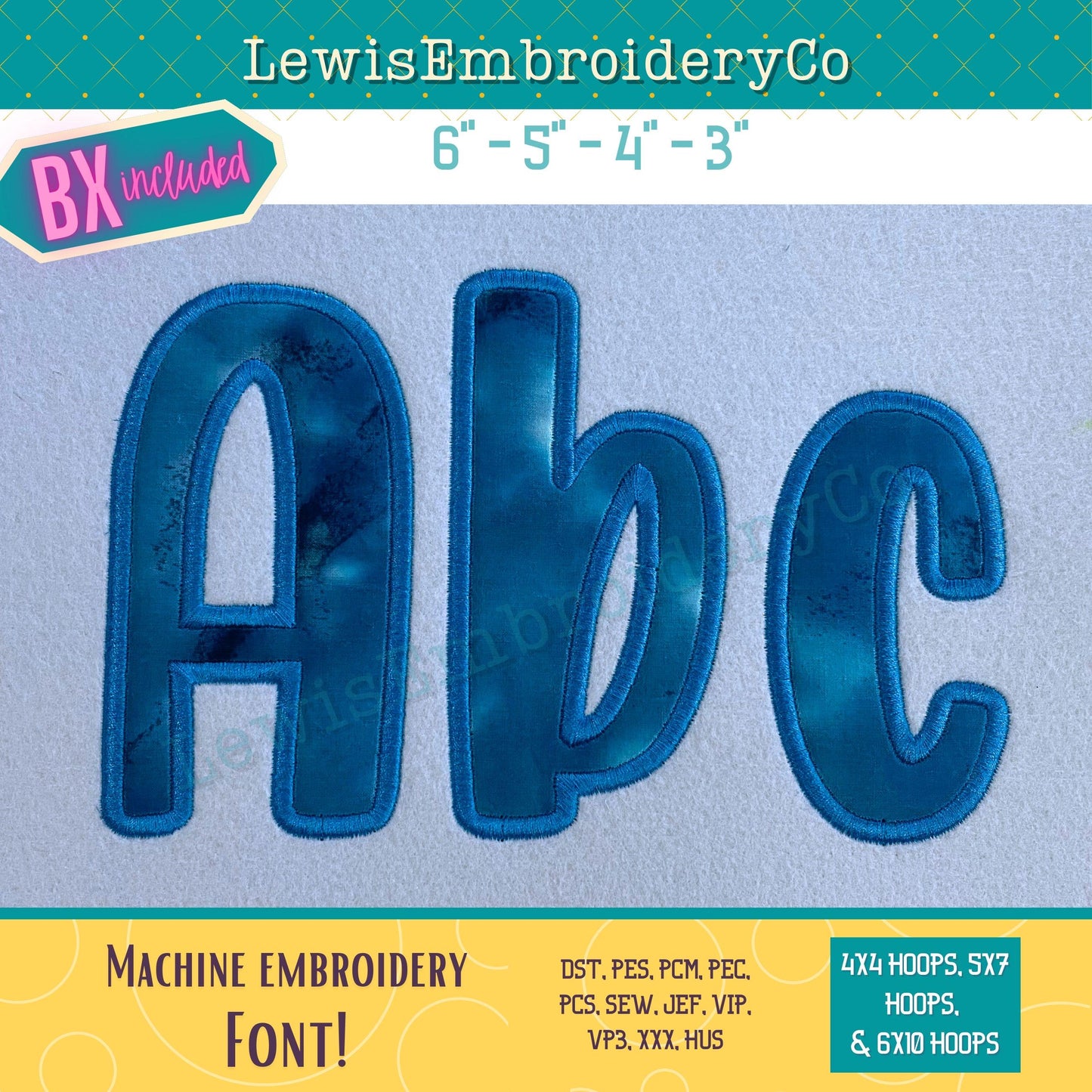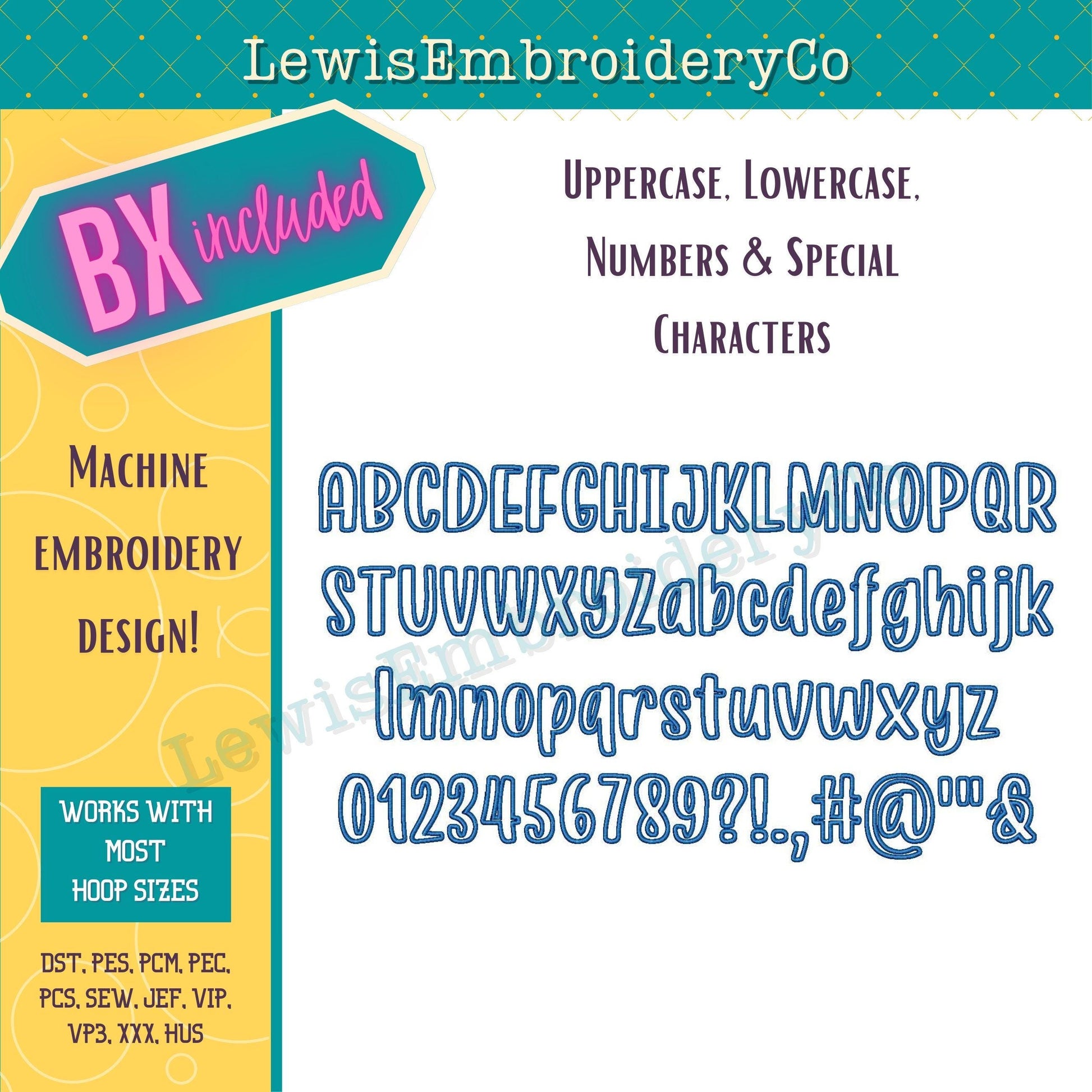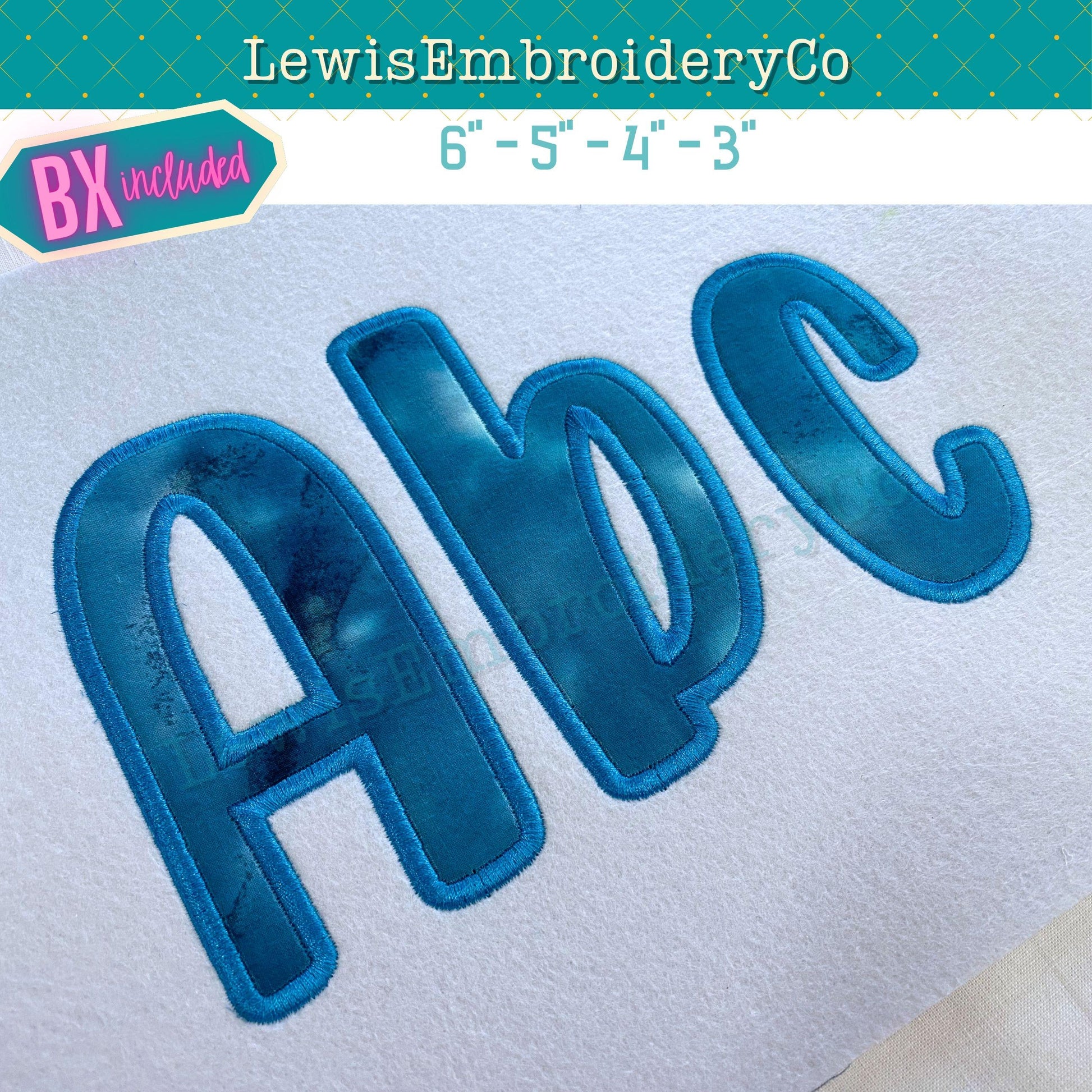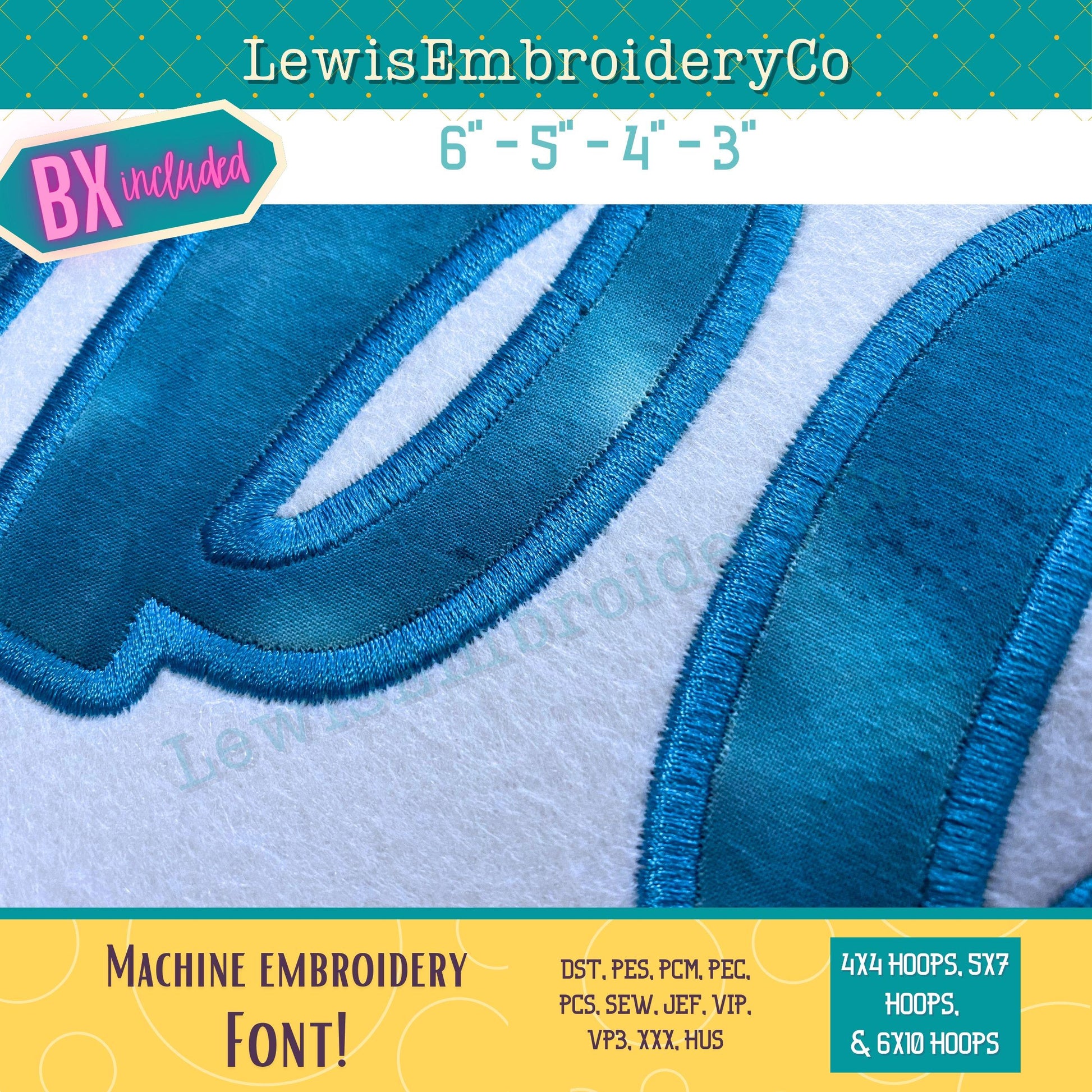
Satin Applique, Machine Embroidery Font - With BX - (PDF Tutorial Included)
Applique Embroidery Font - Cute Bubble Letters - Birthday Applique Alphabet - Satin Applique Embroidery Font - BX Font - Applique Numbers
This fun font will add a nice touch to any of your projects!